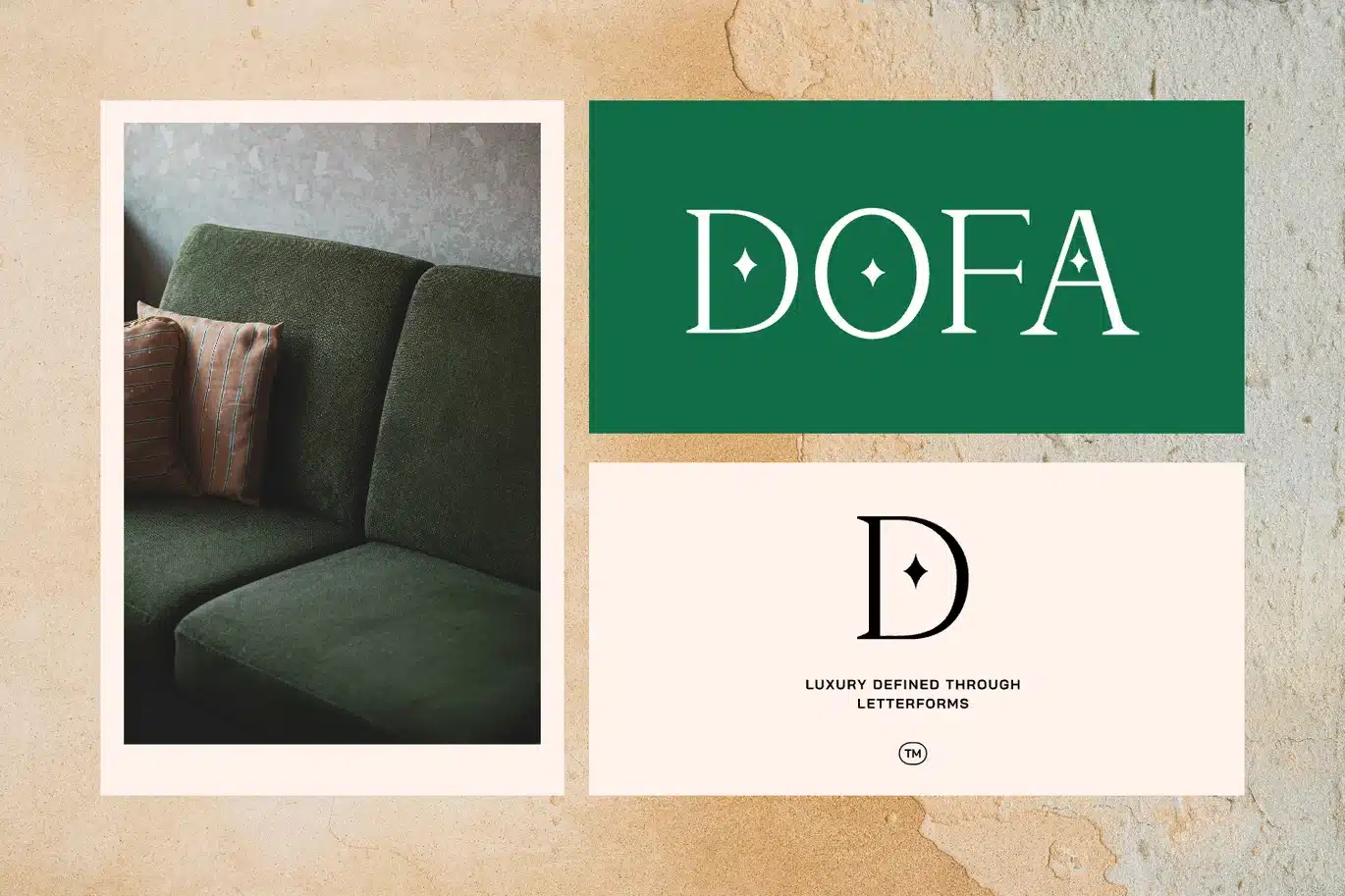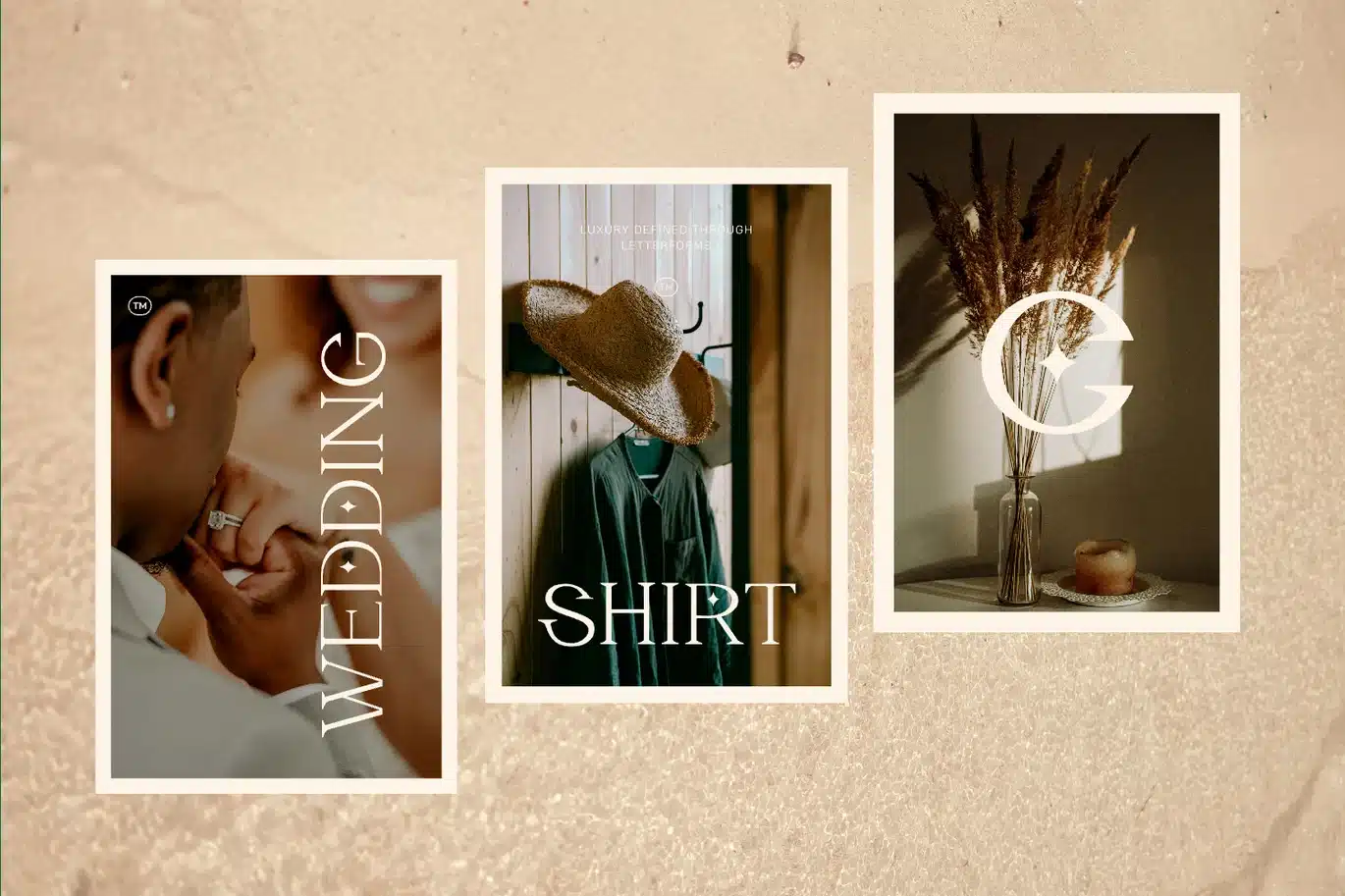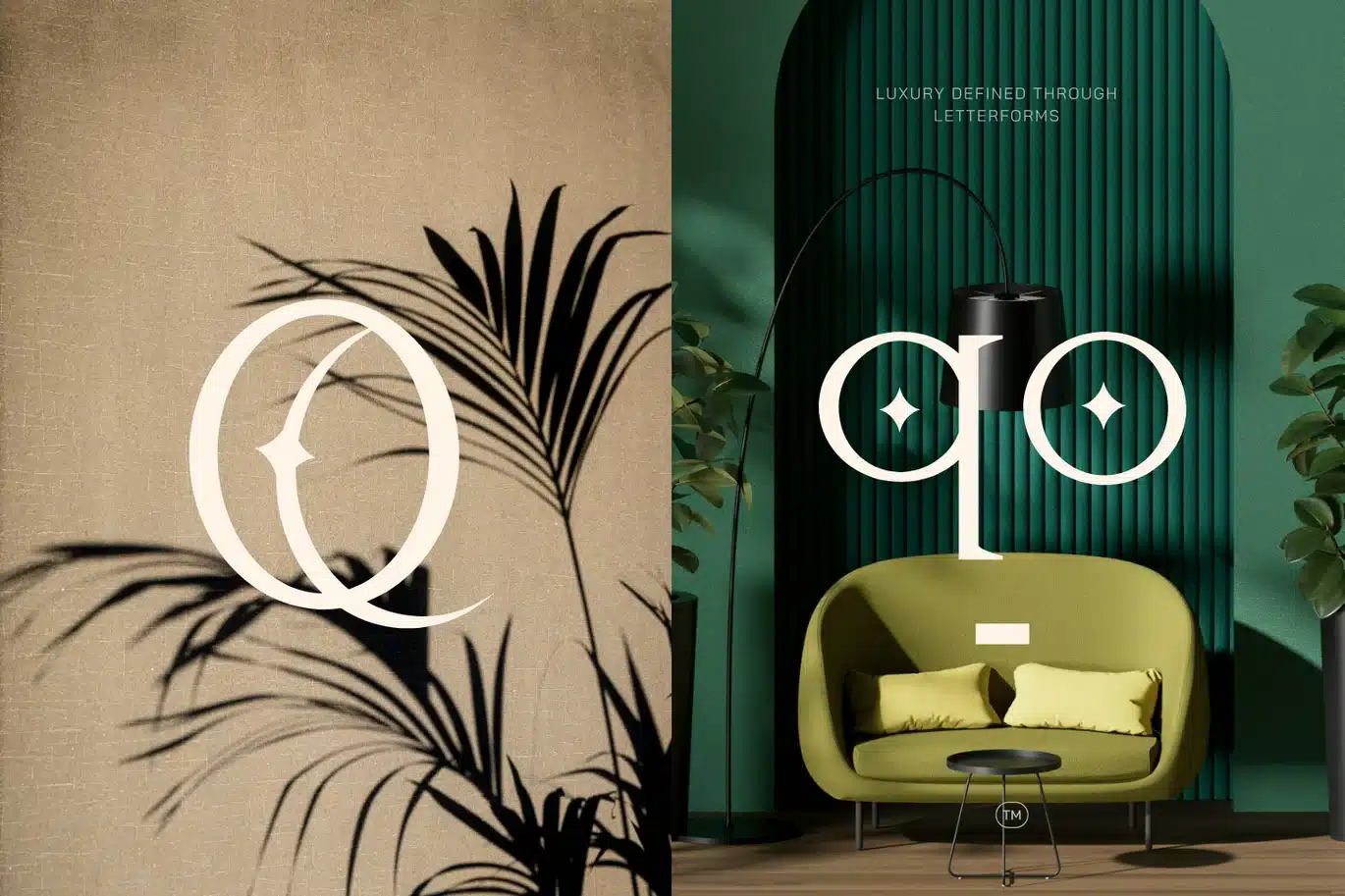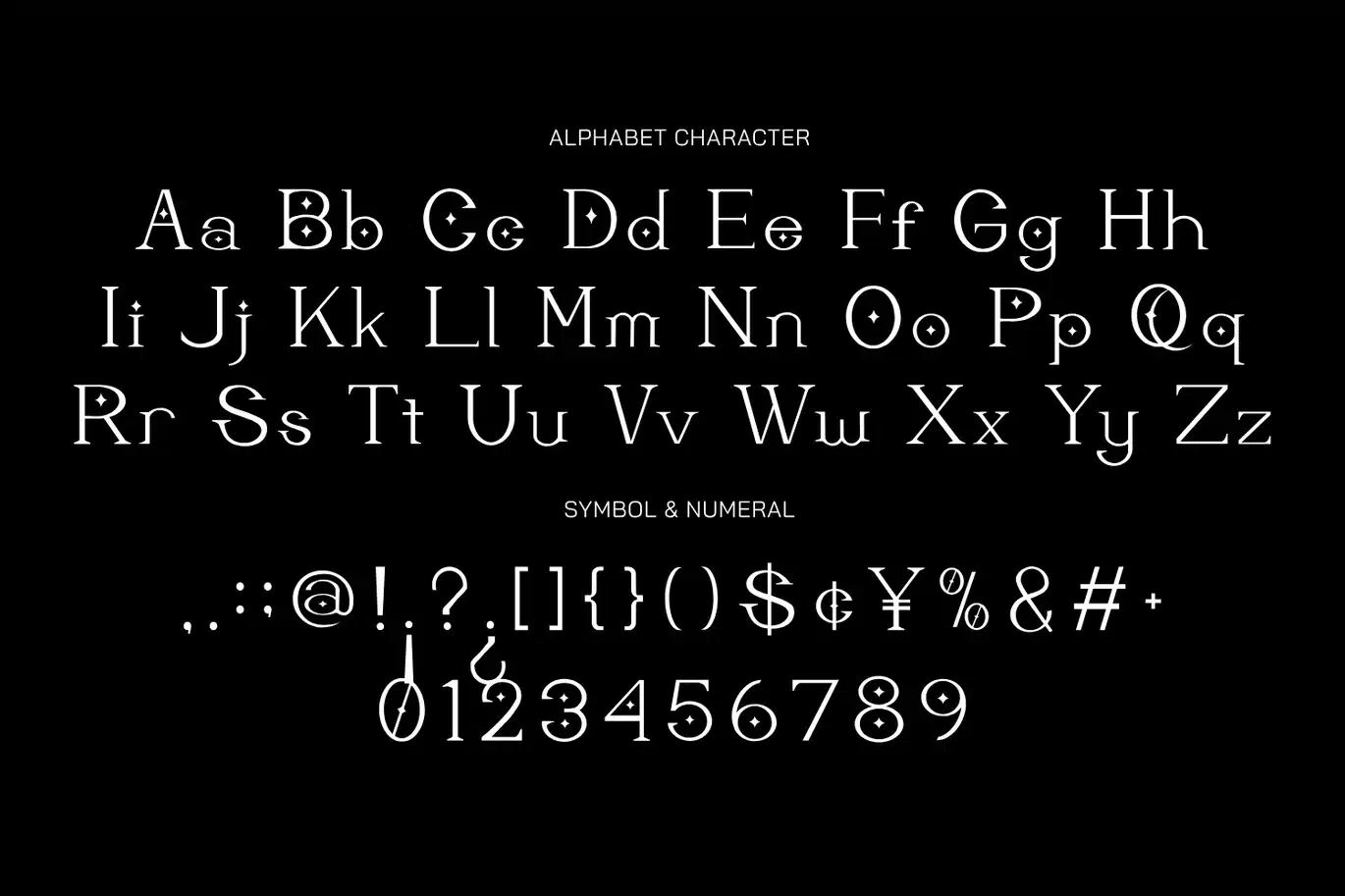
Micae – Logo Font
Migae font is a modern and elegant display typeface designed to bring a unique and expressive touch to logo and branding projects. With its refined serif structure and subtle decorative accents, this font blends contemporary style with a timeless feel inspired by helvetica, montserrat, and futura. Its distinctive character creates a sophisticated visual identity, making it perfect for fashion brands, corporate designs, and creative concepts that seek elegance with personality.
With its versatile and eye-catching design, Migae font adapts seamlessly across a wide range of applications, from stylish display headlines to playful kids concepts. The clean and minimal foundation ensures readability while maintaining a strong display presence, making it ideal for logos, branding systems, and modern visual compositions. Migae stands among modern fonts that combine elegance, creativity, and clarity to deliver a memorable and impactful design.